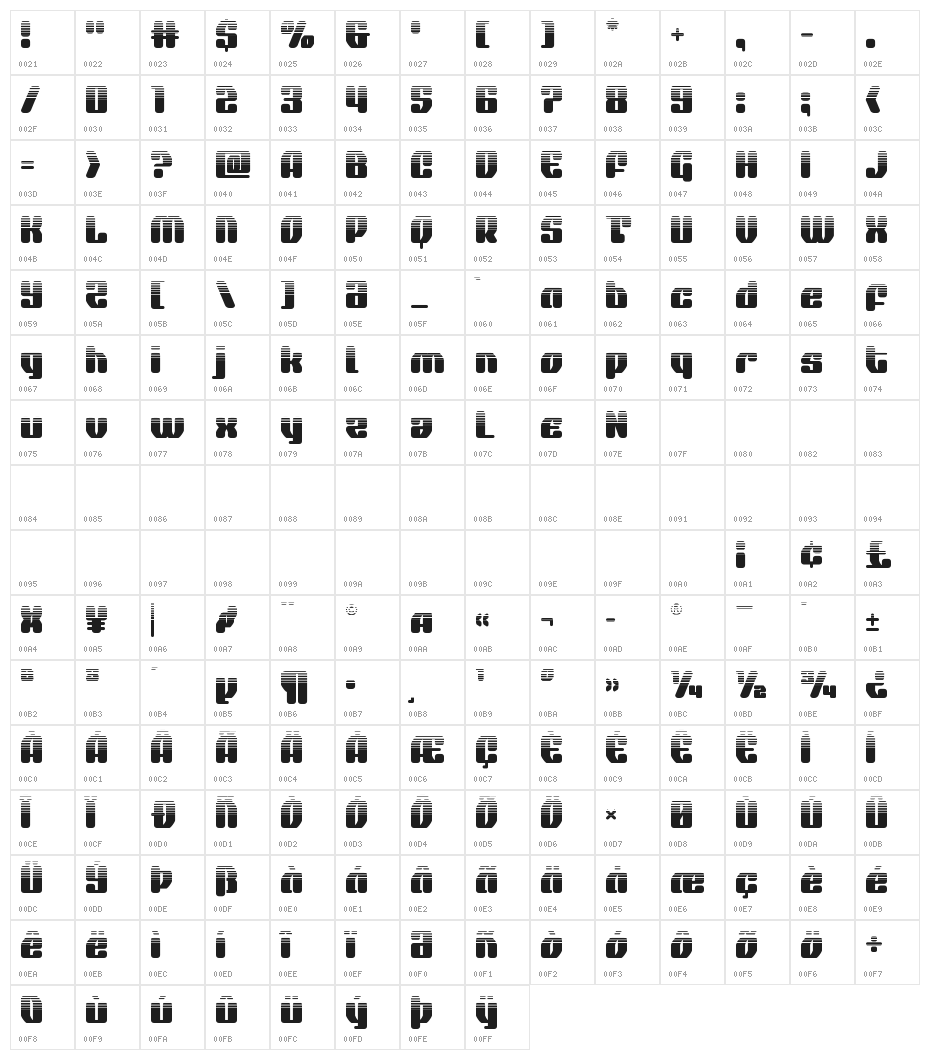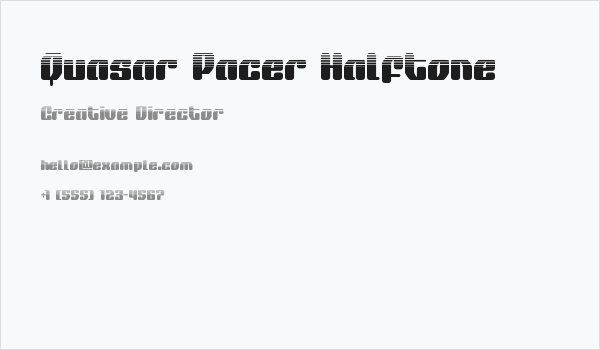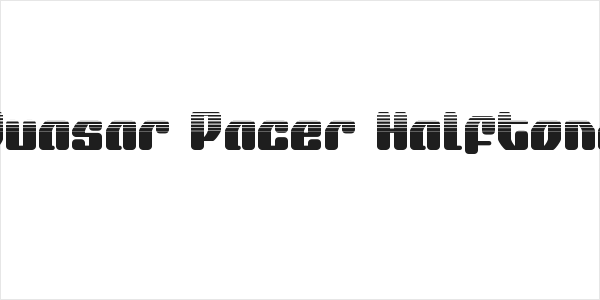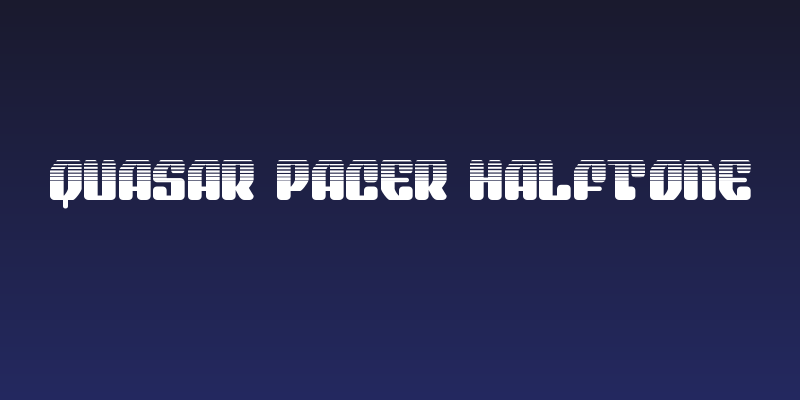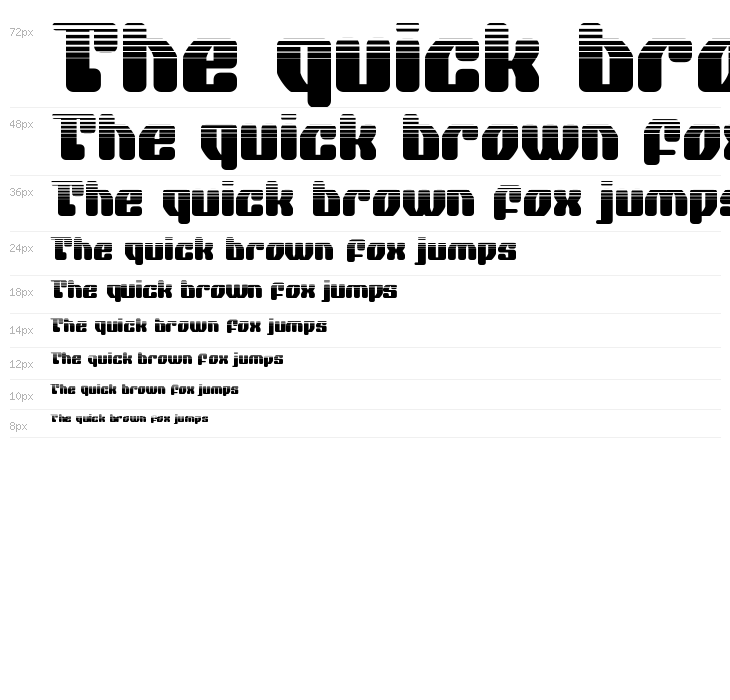
Quasar Pacer Halftone Font
Quasar Pacer Halftone Description
This font features a bold, futuristic design with a halftone effect that gives it a unique, digital appearance. The characters are constructed with a series of horizontal lines that create a sense of movement and rhythm. The uppercase and lowercase letters maintain a consistent style, with rounded edges and a blocky structure. The numbers and special characters follow the same design principles, ensuring a cohesive look across all glyphs. This font's distinct style makes it ideal for projects that require a modern and edgy aesthetic.
| Proposed Projects | Ideal for digital art, tech branding, video game titles, and futuristic-themed posters. |